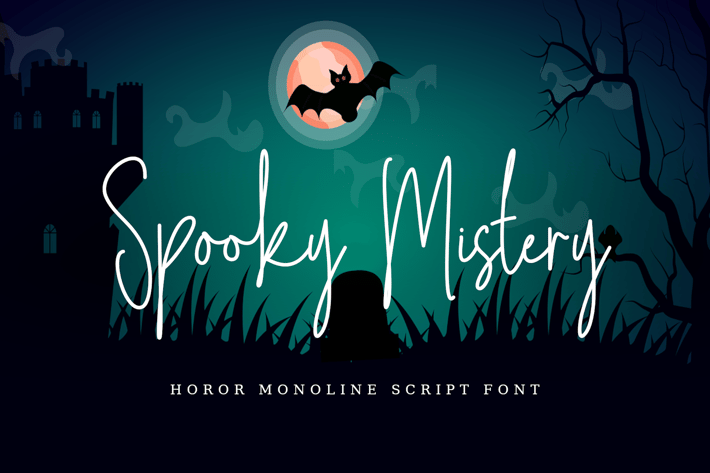
Spooky Mystery - Script Font
Spooky Mystery is a hauntingly elegant signature script font that blends spooky vibes with classy strokes. Ideal for Halloween graphics, stylish branding, invitations, packaging, and editorial designs.
With its flowing curves and eerie charm, this font adds a mysterious yet refined flair to your project.
Key Features:
- Elegant script with spooky aesthetic
- Ideal for Halloween and dark branding
- Smooth signature-style strokes
- Highly legible and stylish
Unleash your eerie creativity with Spooky Mystery.